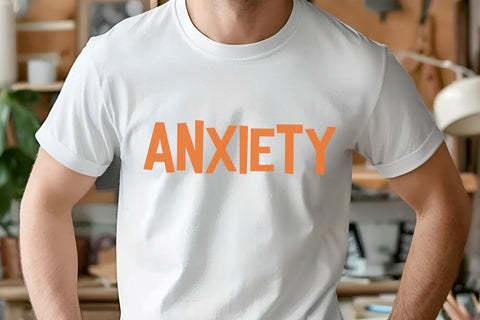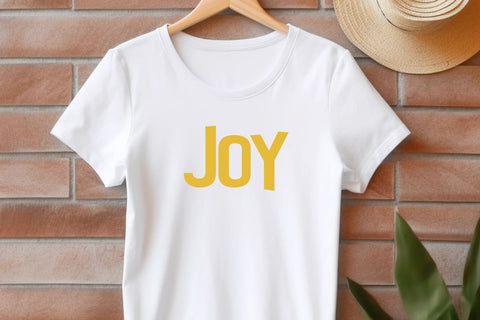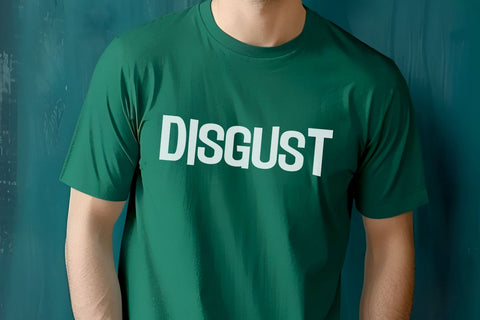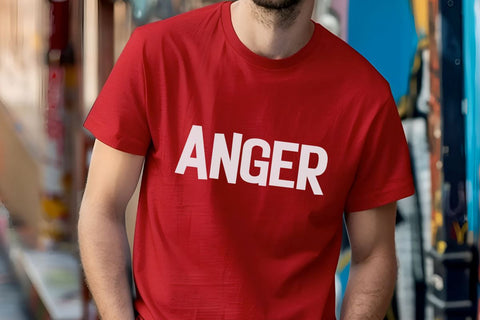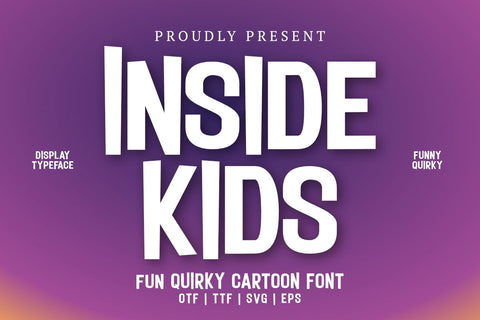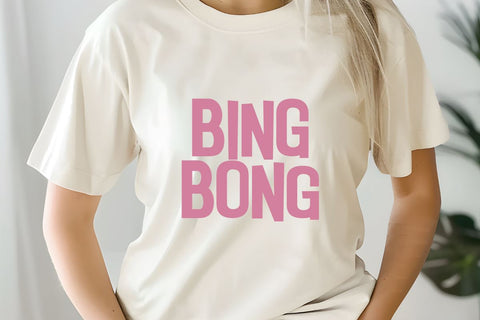
Inside Kids - Fun Quirky Cartoon Font
Inside Kids is a fun quirky cartoon display font. font inspired by cartoon film design. This font is perfect for your creative projects such as logos, book covers, titles, posters, planners, journals, teaching materials, apparel, t-shirts, stickers, quotes, greeting cards, invitations, and many other creative ideas including for the needs of content creators and social media.